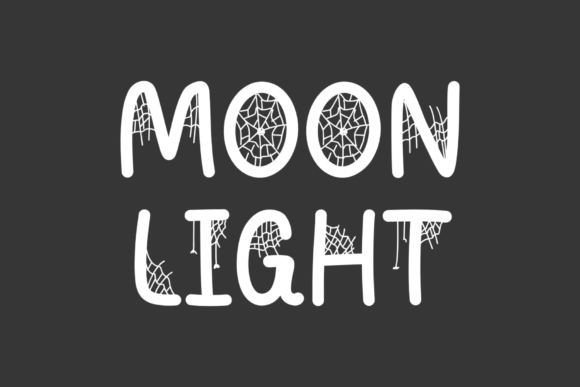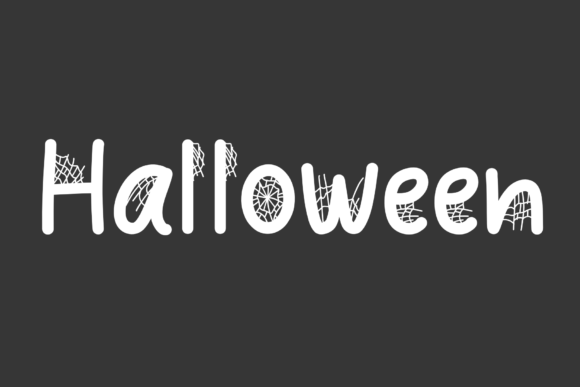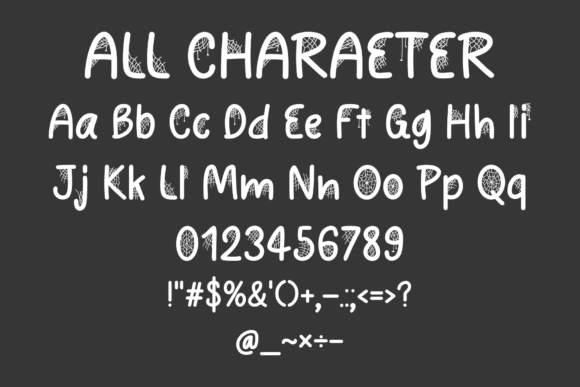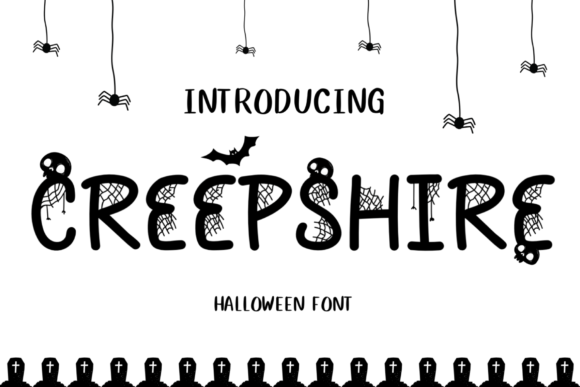
Introduction to Creepshire Font
Unleash your creativity with this captivating typeface that embodies the perfect balance between creepy and charming.
Whether you’re designing Halloween-themed invitations, spooky posters, or bewitching social media graphics, β€œCREEPSHIRE Font” is here to add a spine-tingling touch to your designs .
Key Features of Creepshire Font
Why Choose Creepshire Font?
Creepshire Font offers exceptional quality and versatility, making it a valuable addition to your design toolkit. Whether you’re creating for personal projects or commercial use, Creepshire Font delivers professional results.